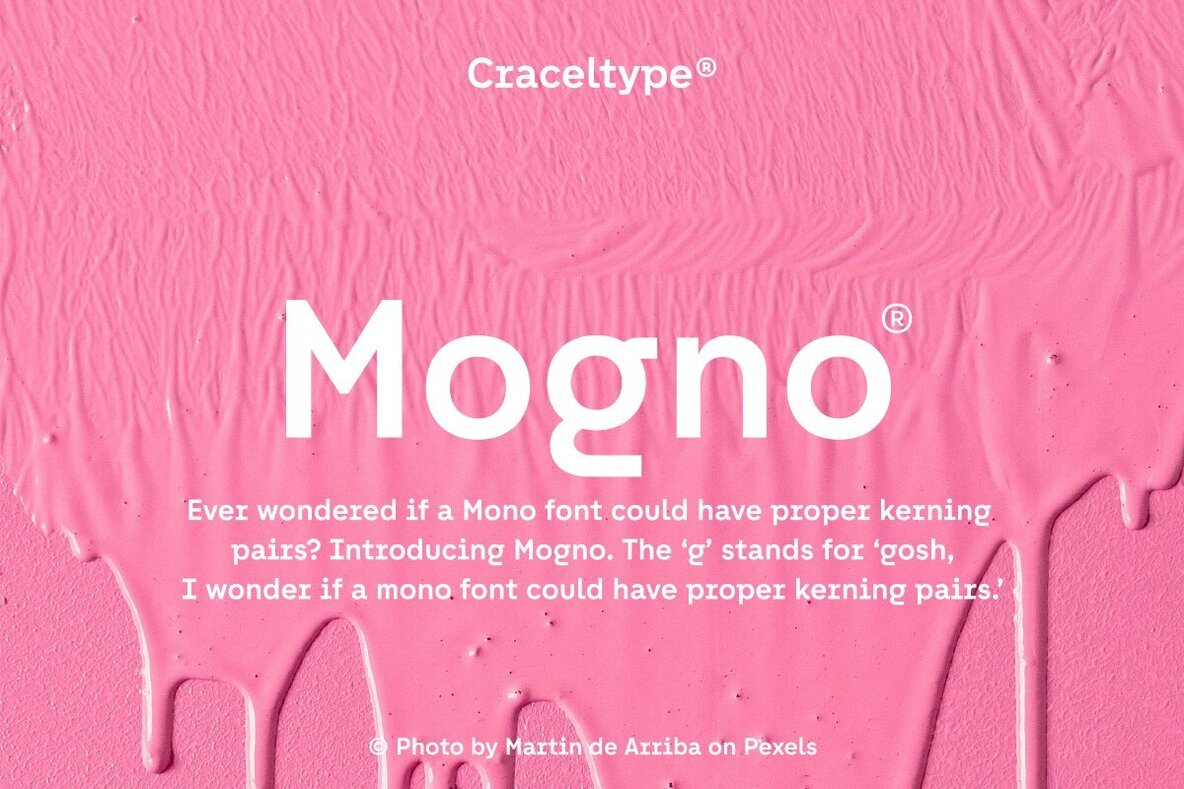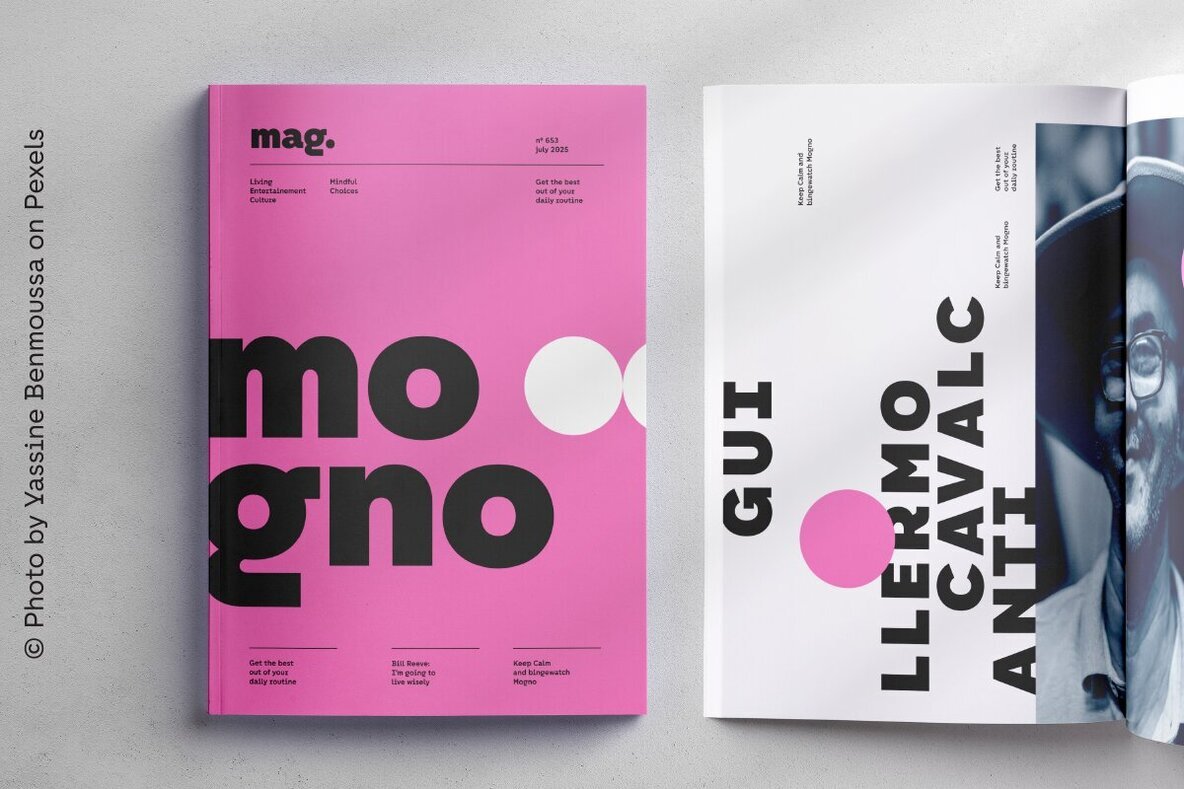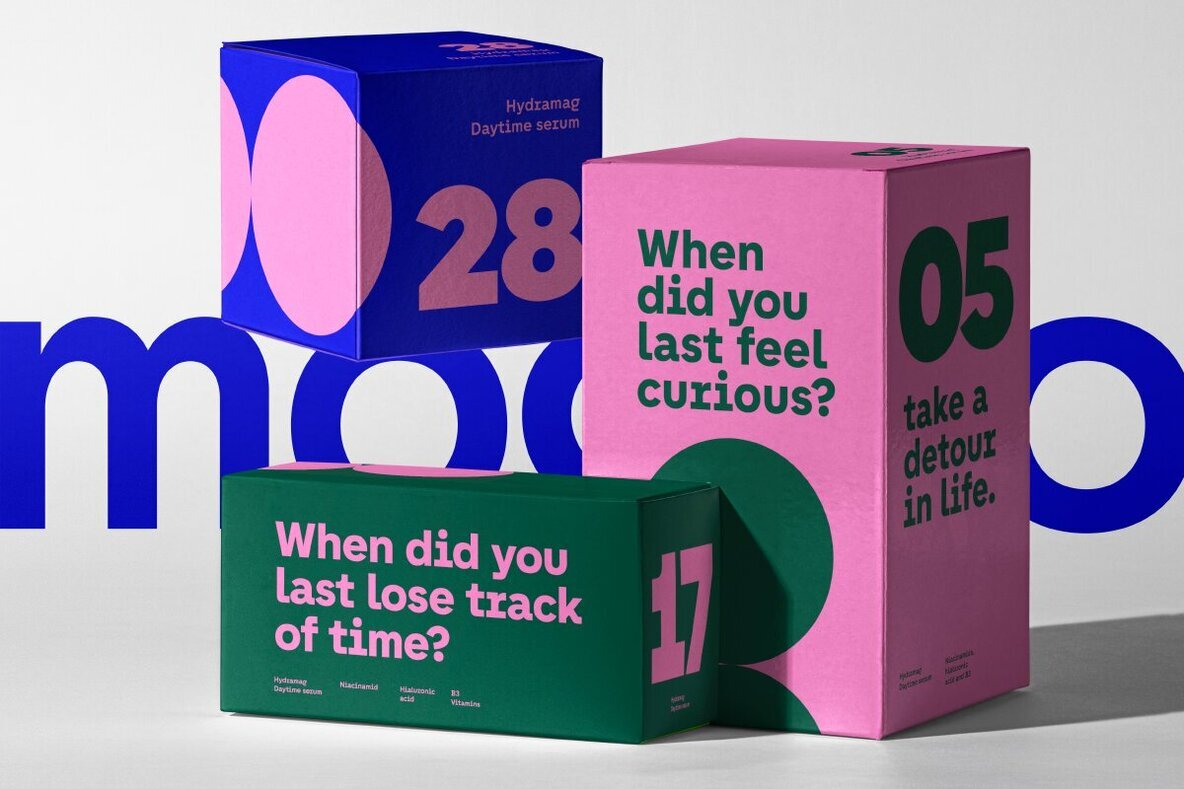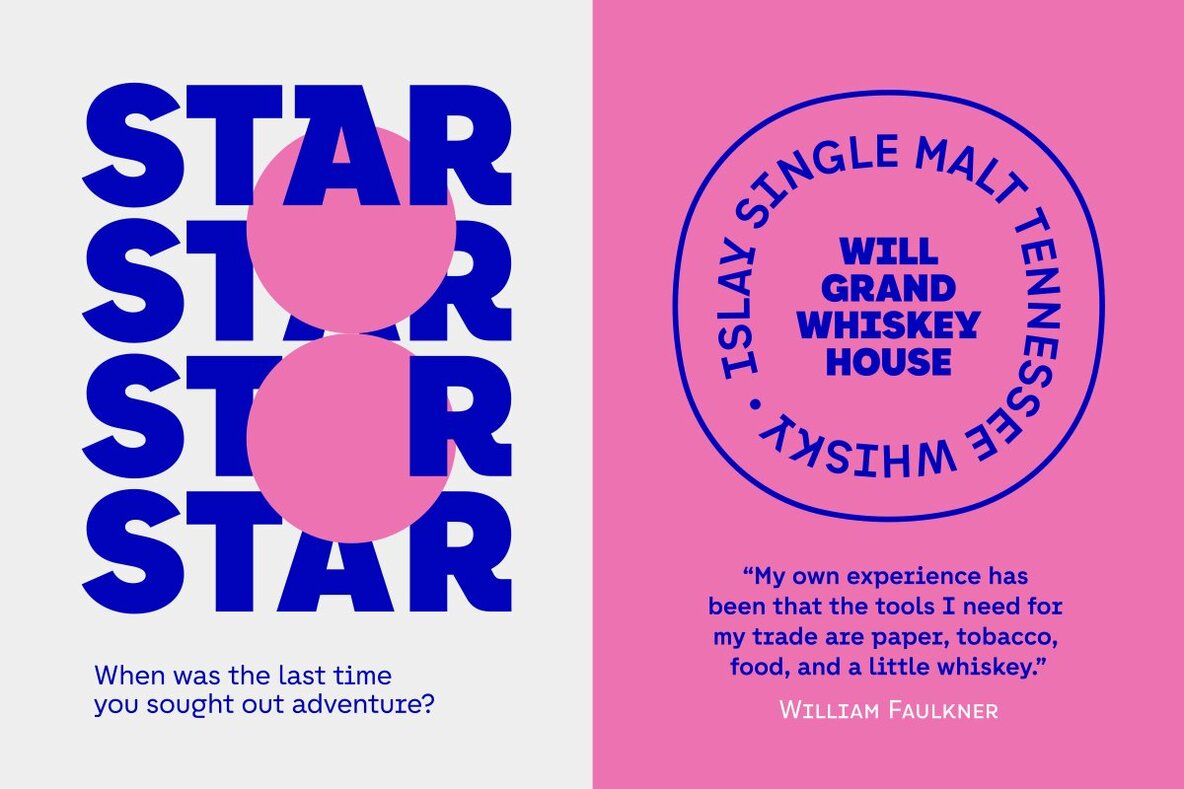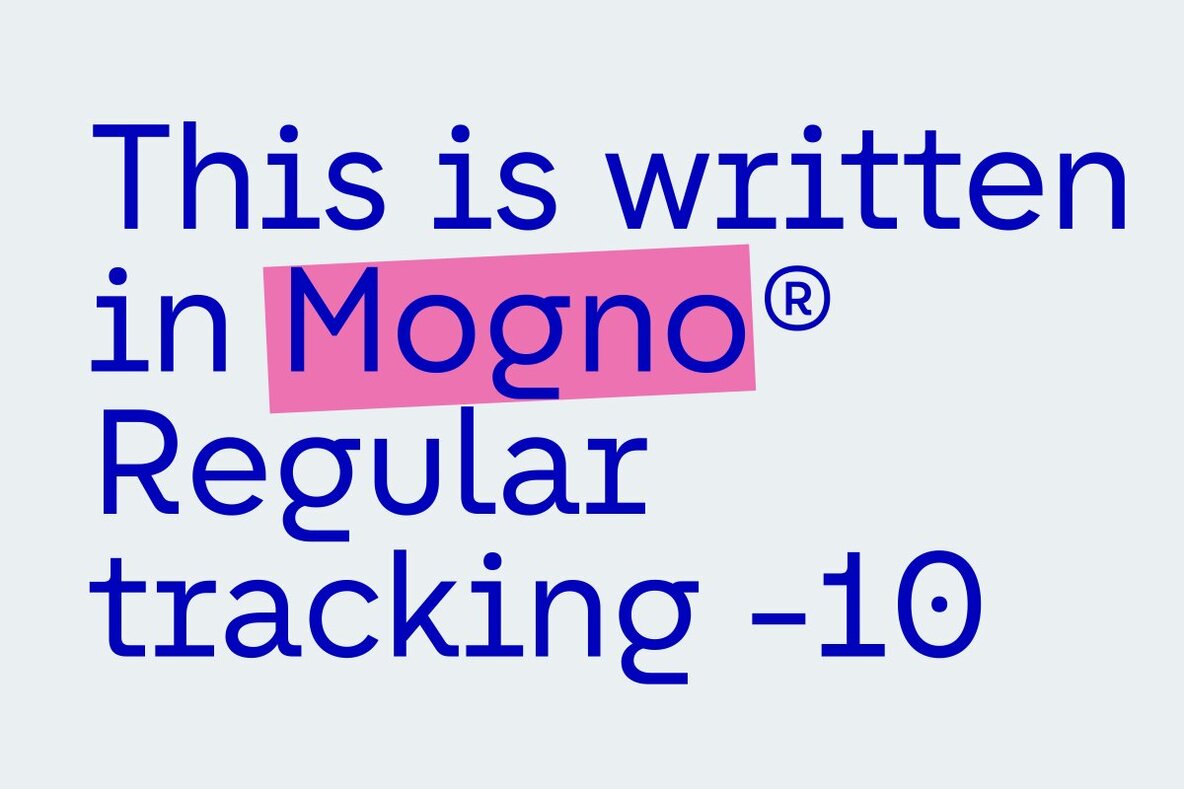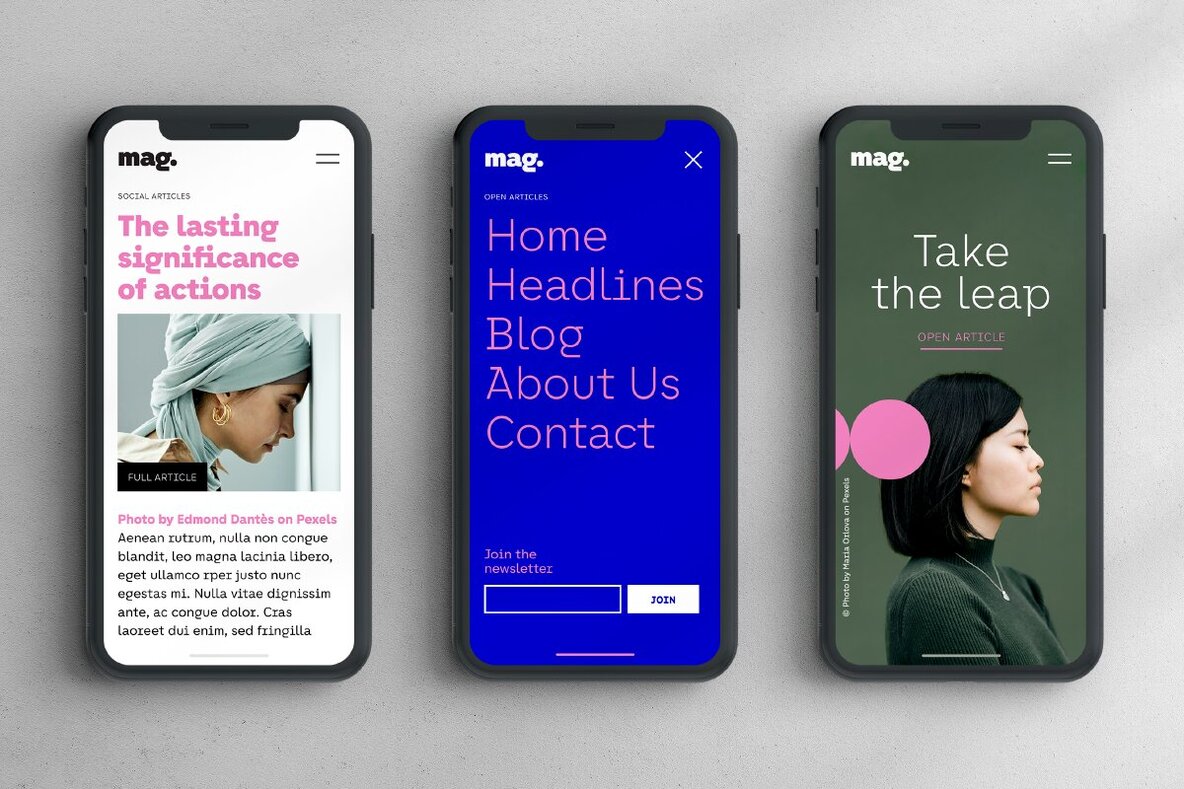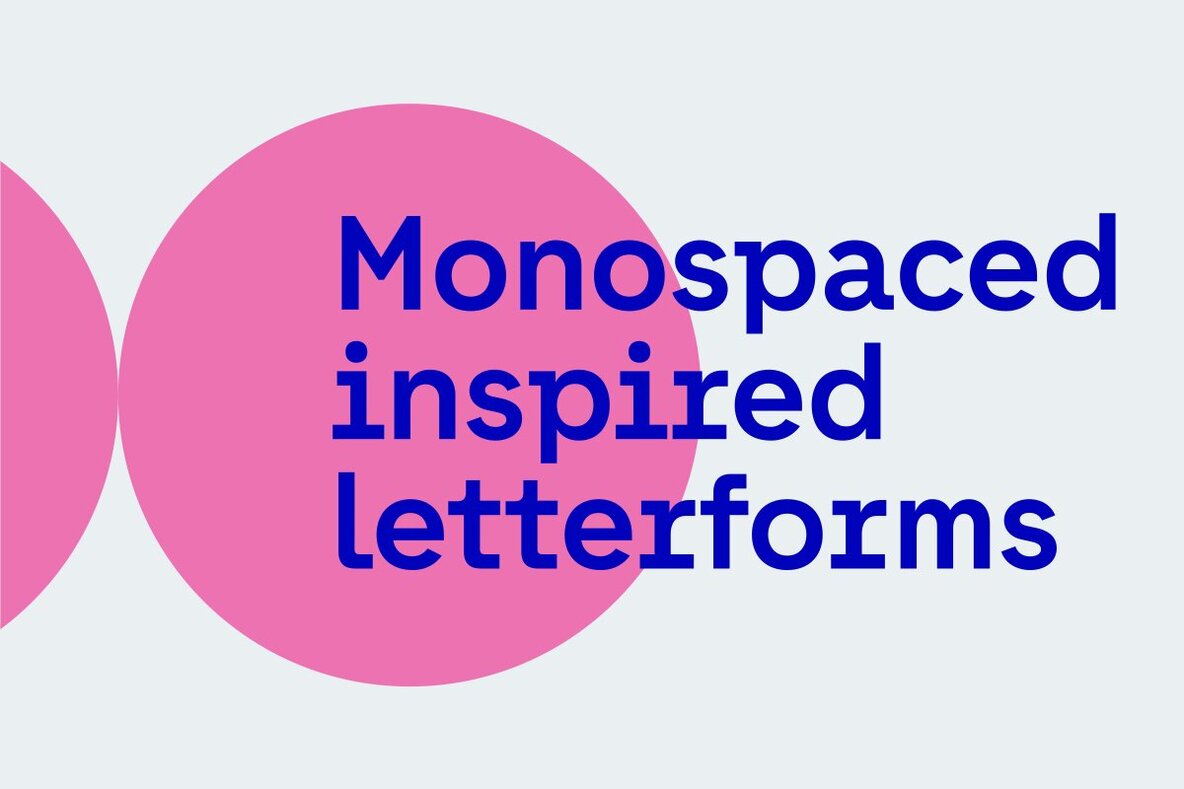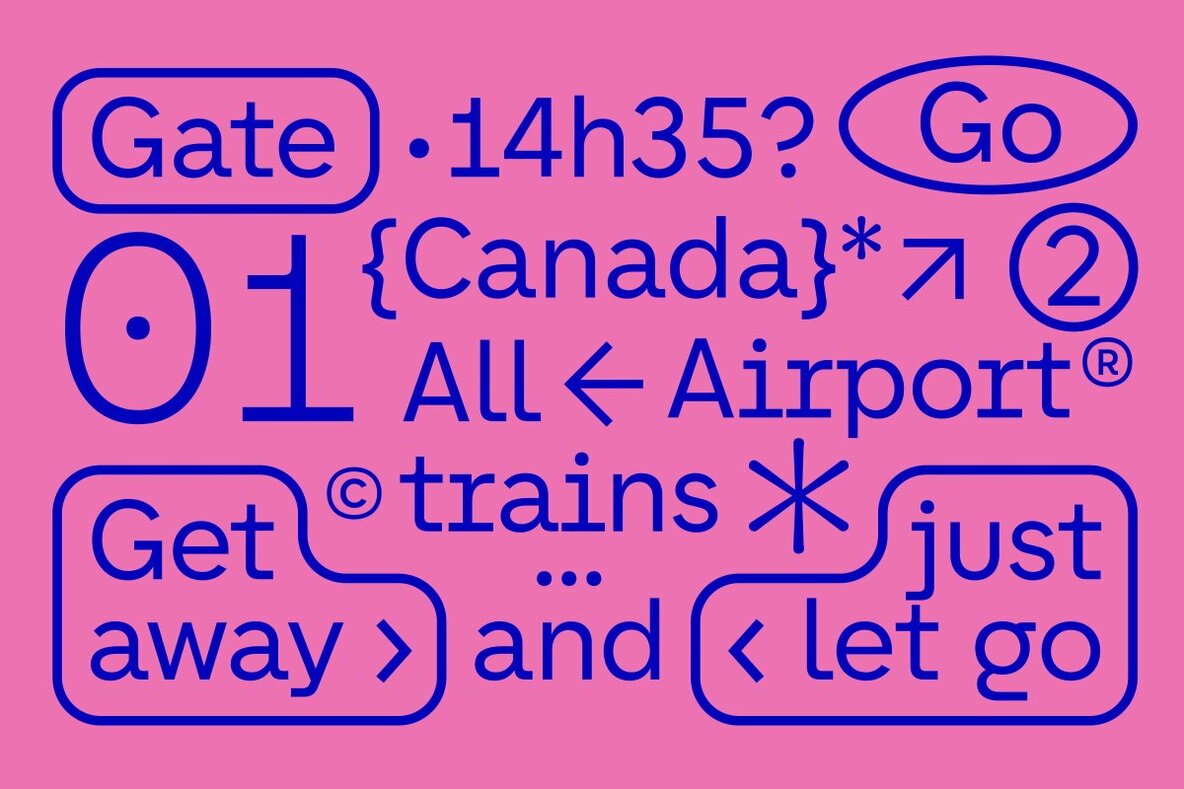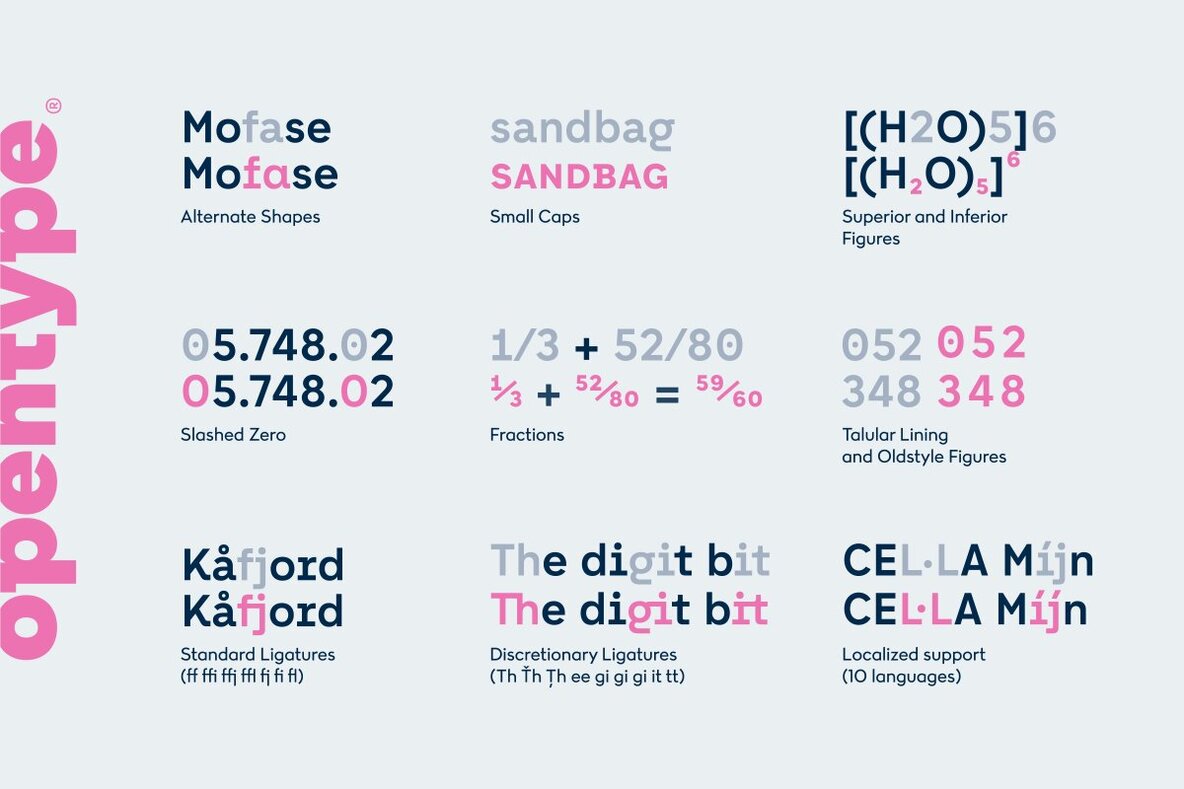
Mogno Font
Explore the versatility of Mogno, your go-to type family that marries monospaced precision with contemporary design flair. With its rich humanistic qualities, Mogno offers a refreshing balance of clarity and warmth. Its notably large x-height ensures exceptional readability, even at smaller sizes. The collection comprises 18 distinct styles, providing you with a palette of creative opportunities. Mogno's commitment to comfort and precision makes it a reliable choice for any design project. Whether you're aiming for a minimalist aesthetic or a more elaborate display, Mogno's adaptability will enhance your work with each character.Discover the Mogno Typeface